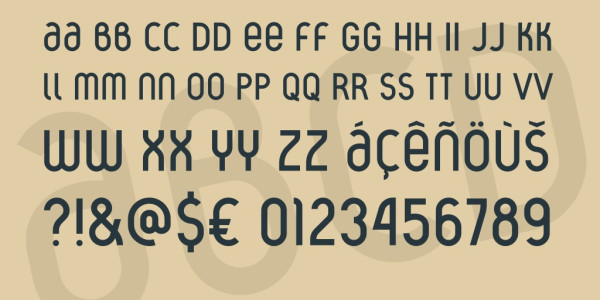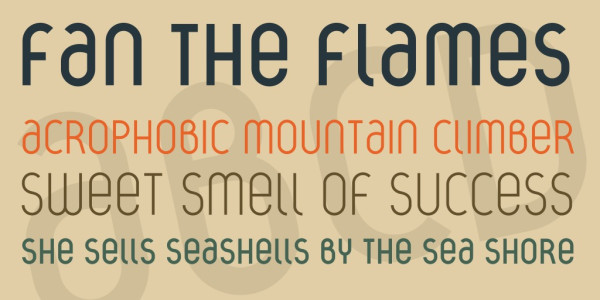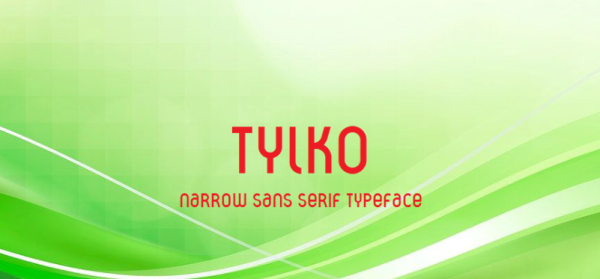
Tylko Font
Tylko Font is A narrow, sans serif font characterized by its slender and streamlined appearance. It features letters with no variation in line thickness, creating a crisp and modern aesthetic. The absence of serifs gives the font a clean and straightforward look. With its condensed design, this font is well-suited for conveying information in a compact space, making it ideal for headlines, logos.